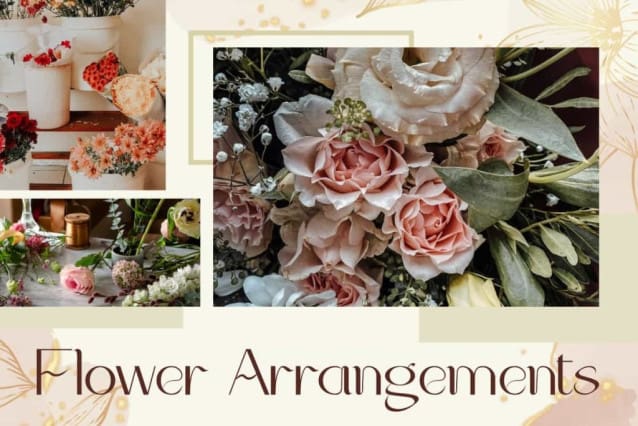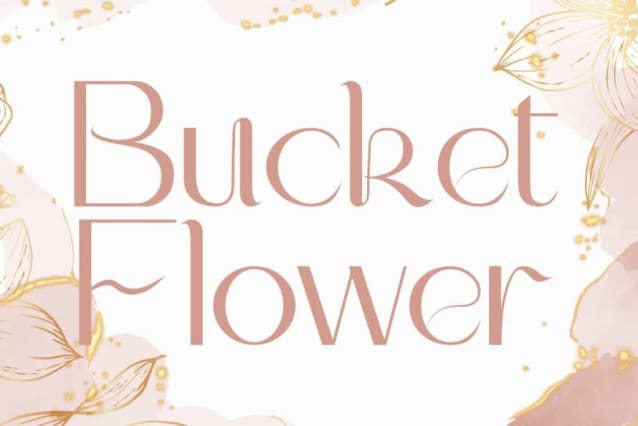
Bucket Flower Font
Bucket Flower Font is a beautiful sophisticated serif display font with a special curvy style. This font has wavy lines like a beautiful and romantic bunch of flowers. It will suits many designs, such as brand image, custom design, gift box, invitation, label, poster, product packaging, quote, signage, stationery, website page, and more!
Bucket Flower Font includes full set of Uppercase and Lowercase Basic Characters, Numerals, and Punctuation. This font can give fancy looks and will be suitable for many industries, such as advertising, beauty product, event or wedding organizer, fashion, jewelry and accessories, furniture, photography, resort, restaurant, skincare, etc.